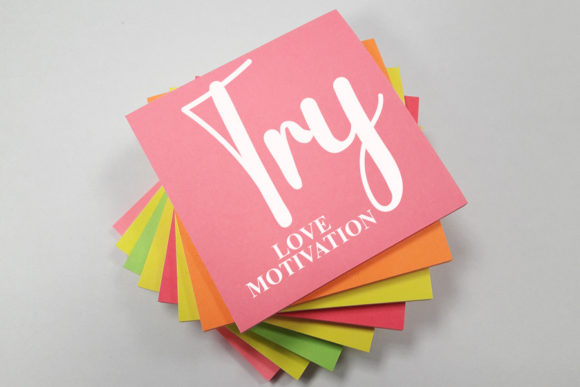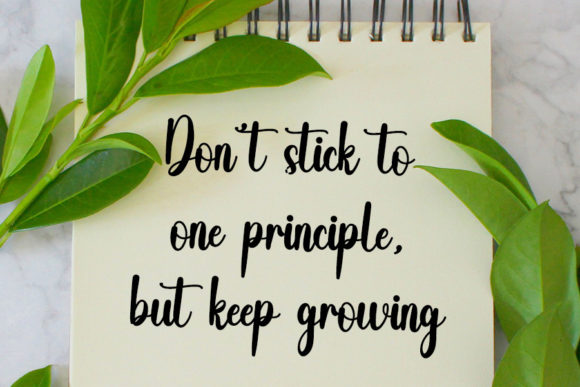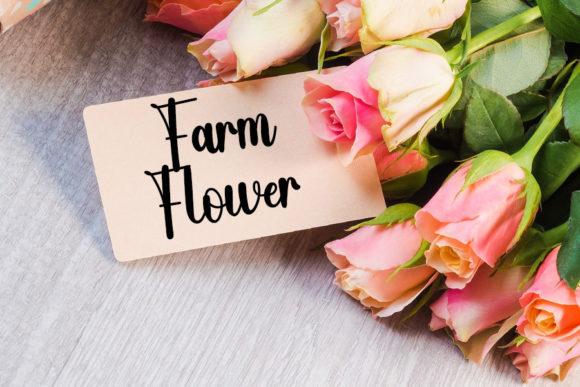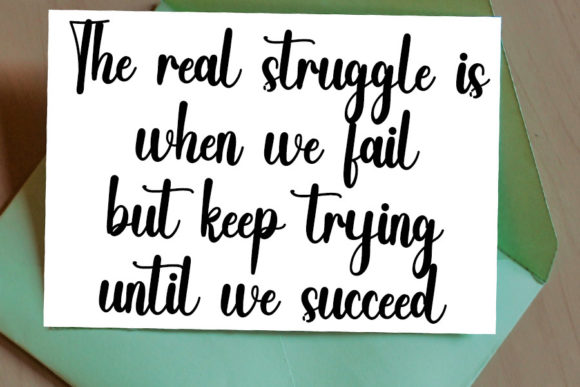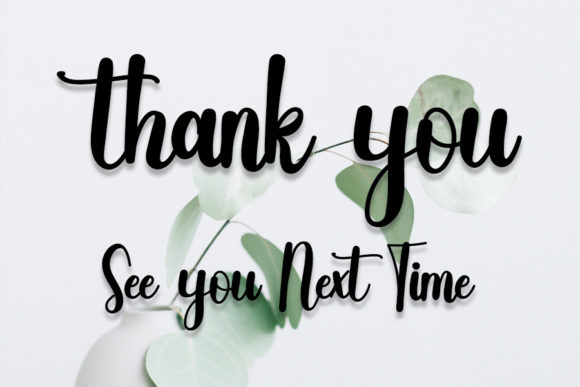
The Perfect Blend of Elegance and Whimsy: Botany Font
There’s something special about the moment when a design comes together – the thrill of seeing your ideas take shape, the satisfaction of knowing you’ve created something truly unique. For many designers, this moment is the culmination of hours, days, or even weeks of brainstorming, sketching, and experimenting. It’s the culmination of creativity, skill, and attention to detail. And for those who crave that special something, a well-chosen font can make all the difference.
Enter the Botany Font, a stunning handwritten font that exudes a contemporary atmosphere and impeccable form. Inspired by the timeless classic calligraphy, this font is designed to elevate your projects to new heights. Whether you’re working on a logo, a branding campaign, or a beautiful book, the Botany Font is the perfect choice to add a touch of sophistication and elegance.
With its balanced and varied design, the Botany Font is a valuable asset for any designer looking to add a unique touch to their work. Its versatility and beauty make it a must-have in any font collection, and its timeless appeal ensures that it will remain a classic for years to come.
Botany Font Key Features
• Font Family: Botany is a unique, handwritten script font designed for various creative applications.
• Language Support: Botany supports a wide range of languages, including Latin-based languages, Cyrillic, and Greek.
• Unique Characteristics: The font features a natural, handwritten feel with subtle imperfections, making it perfect for adding a personal touch to designs.
Botany Font Review
As a designer, I was excited to dive into the world of Botany Font, and here’s my honest take on this beautiful font.
• Unique and elegant design: Botany Font boasts a distinctive style that sets it apart from more traditional serif fonts.
• High-quality glyph set: The font includes a wide range of characters, including numbers, punctuation, and accents, making it suitable for a variety of applications.
• Good legibility: The font is easy to read, even at smaller sizes, which is essential for body text and captions.
• May not be suitable for headings: While the font is beautiful, it may not be strong enough to carry a heading or title on its own.
• Limited bold and italic weights: The font only comes in light, regular, and bold weights, which may limit its versatility in certain designs.
• Not ideal for small text sizes: While the font is legible at smaller sizes, it may become too delicate and hard to read in extremely small sizes.
Overall, I think Botany Font is a great addition to any designer’s toolkit. It’s perfect for body text, captions, and other supporting text, where its unique design and high-quality glyph set can shine. However, it may not be the best choice for headings or titles, and its limited bold and italic weights may limit its versatility in certain designs.
In PowerPoint or Word, select the Botany Font from the font library and adjust the font size, color, and style to suit your design needs. The Botany Font is suitable for creating presentation slides, flyers, and other documents that require a botanical theme.
The Botany Font is commonly used in:
• Botanical illustrations and garden-themed designs
• Flower and plant-themed branding and marketing materials
• Herbalism and wellness-related designs
• Environmental and conservation-themed designs
For optimal results, use the Botany Font in combination with other botanical-themed design elements, such as illustrations and graphics. Experiment with different font sizes and styles to create visually appealing designs.